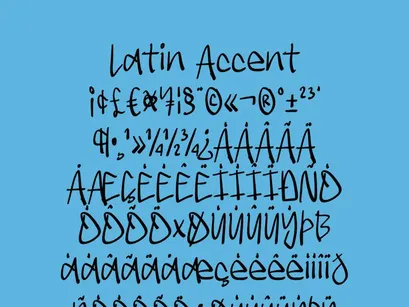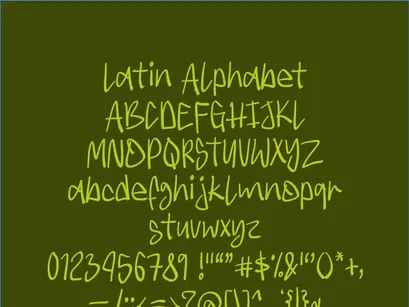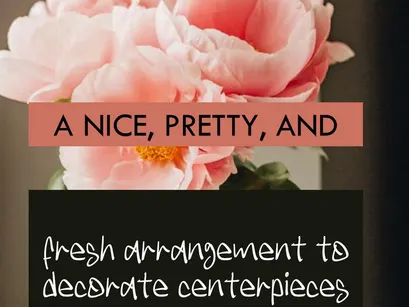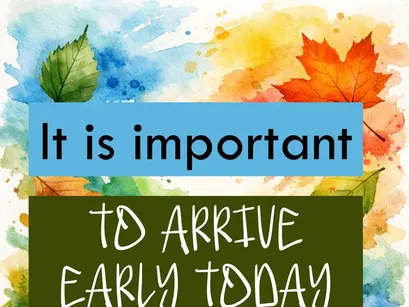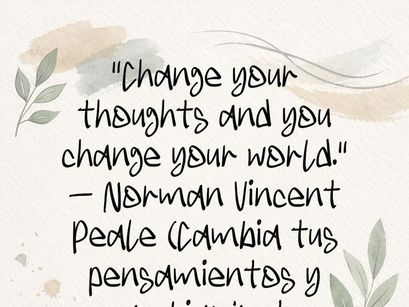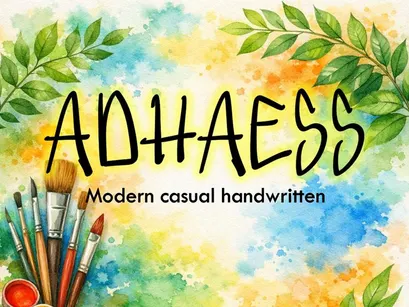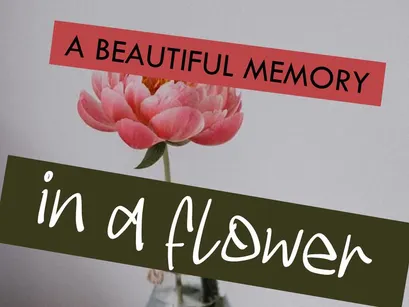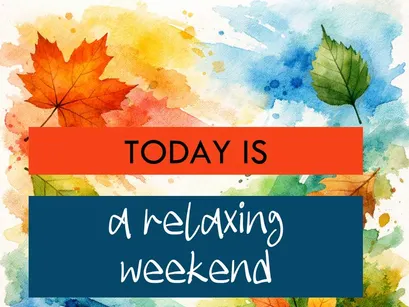
ADHAESS
ADHAESS is a modern, casual handwritten typeface featuring soft, expressive strokes that evoke a sense of naturalness and creativity. Its fluid, balanced style makes it an ideal choice for projects seeking a human, artistic, and positive touch.
Perfect for planners, inspirational quotes, artisanal branding, eco-friendly packaging, and contemporary digital content.